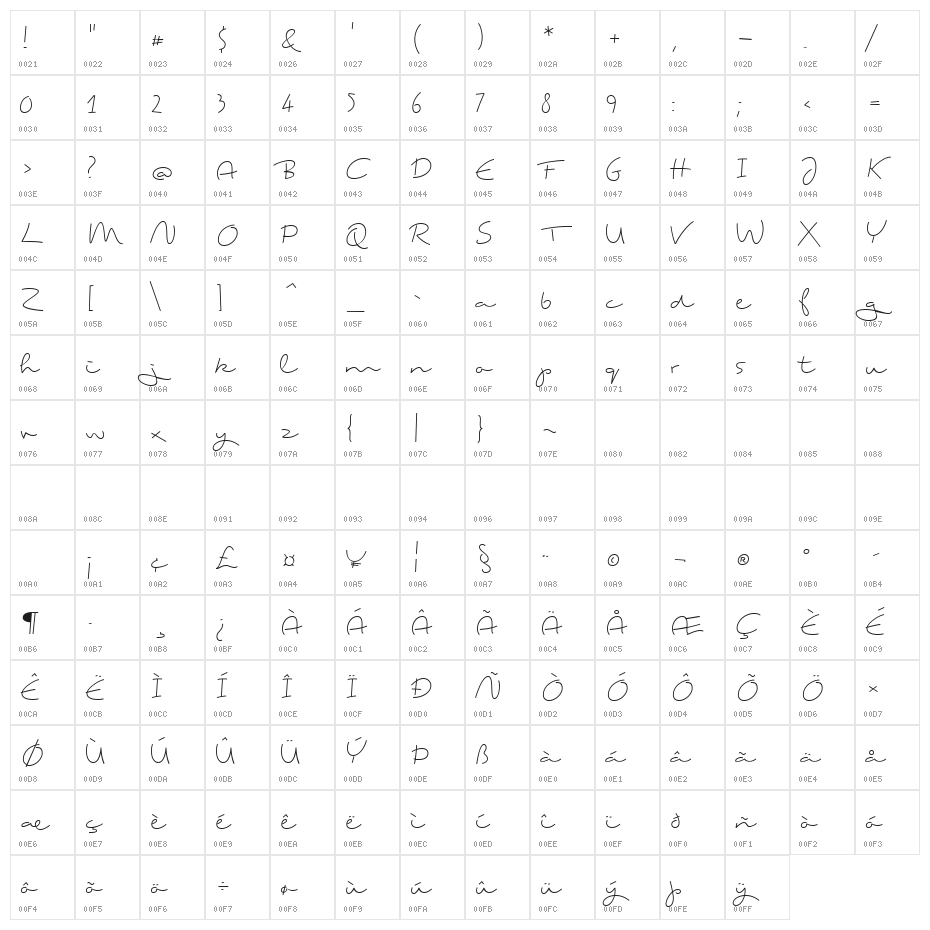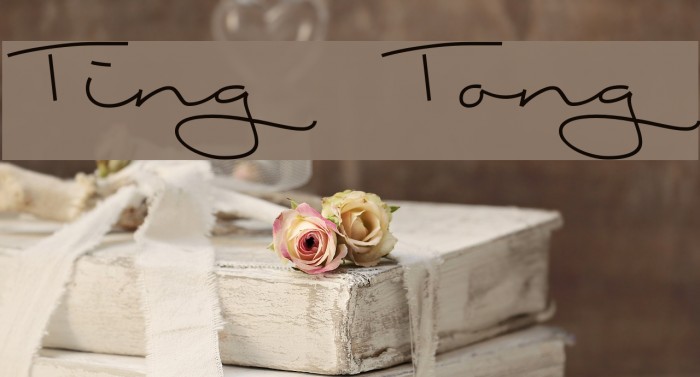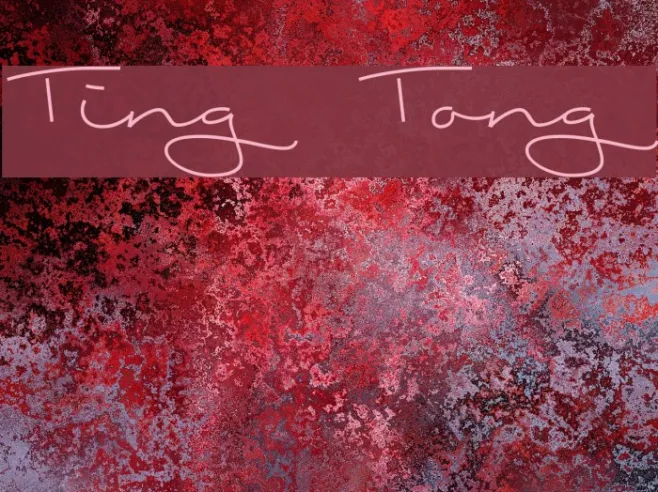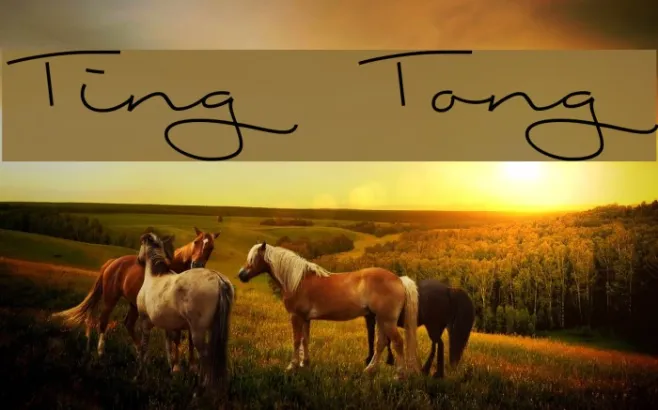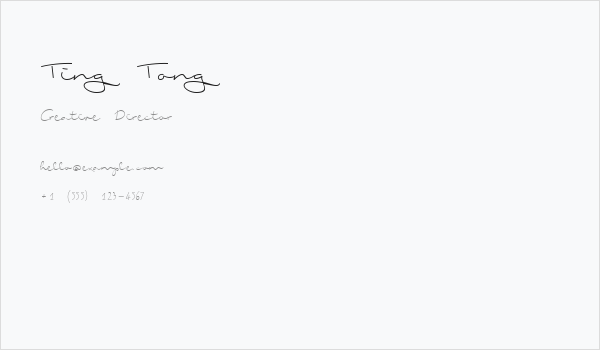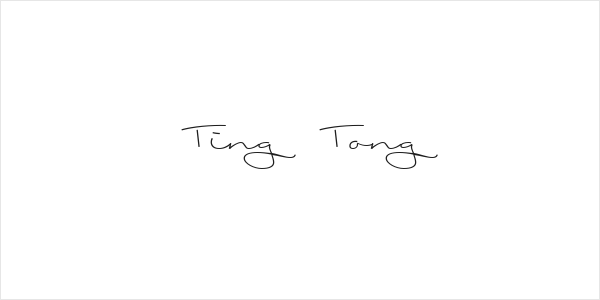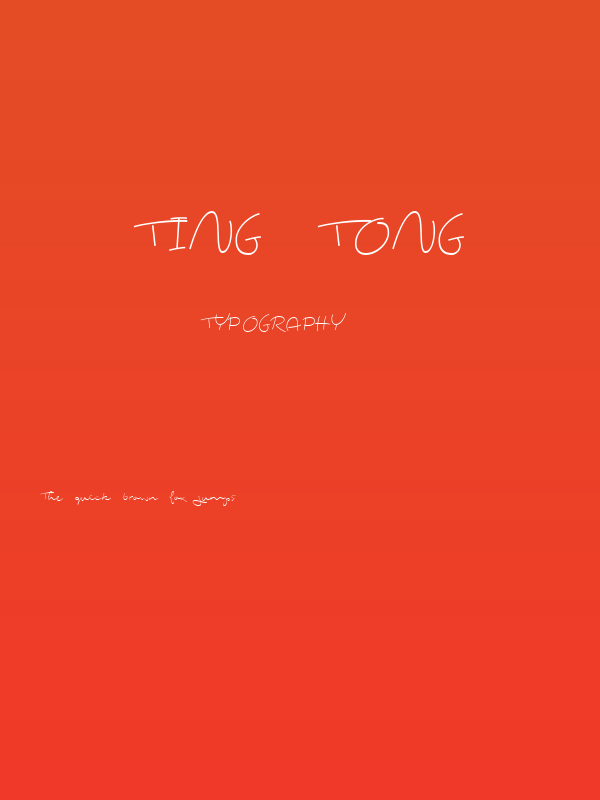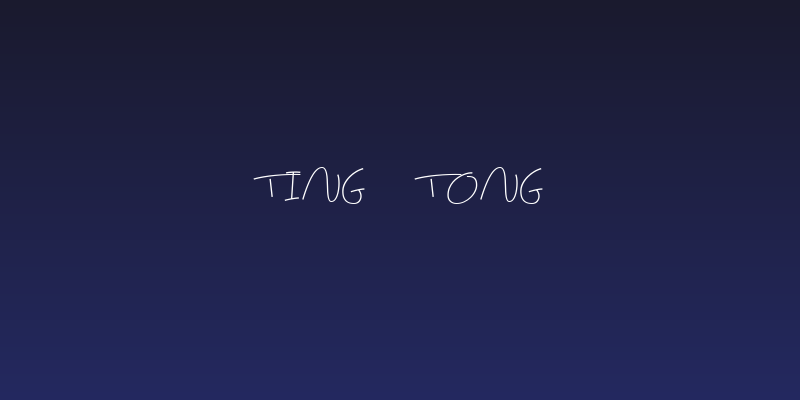
Ting Tong Font
Ting Tong Description
This font features a playful and casual handwritten style, characterized by its fluid and continuous strokes. The uppercase letters are bold and slightly slanted, giving a dynamic and lively appearance. The lowercase letters maintain a consistent flow, with some characters extending below the baseline, adding to its informal charm. The numerals are clear and easy to read, matching the overall whimsical aesthetic. Special characters are integrated seamlessly, maintaining the font's cohesive look. This font is perfect for projects that require a personal touch, such as invitations, greeting cards, or creative branding.
| Use Case | Logos, Headlines, Informal Texts |
| Proposed Projects | Ideal for invitations, greeting cards, personal branding, and creative projects. |